Handcrafted Font Bundle: 22 Unique Fonts for Creative Projects
Introduction to the Handcrafted Font Bundle
This bundle has 22 special fonts, divided into 6 groups. Each font is made to look like it was written by hand, which makes it perfect for designers who want to add some warmth and personality to their work. If you’re working on a project that needs fonts that look like they were written with markers, or if you want a more natural, handwritten feel, this collection has a lot of different options to choose from. You can use these fonts to make your designs look more human and personal.
The fonts in this bundle are great for adding a touch of authenticity to any project, whether it’s a big or small one. They can help you create designs that look unique and interesting, and that stand out from the crowd. With so many different fonts to choose from, you’re sure to find the perfect one to fit your needs.
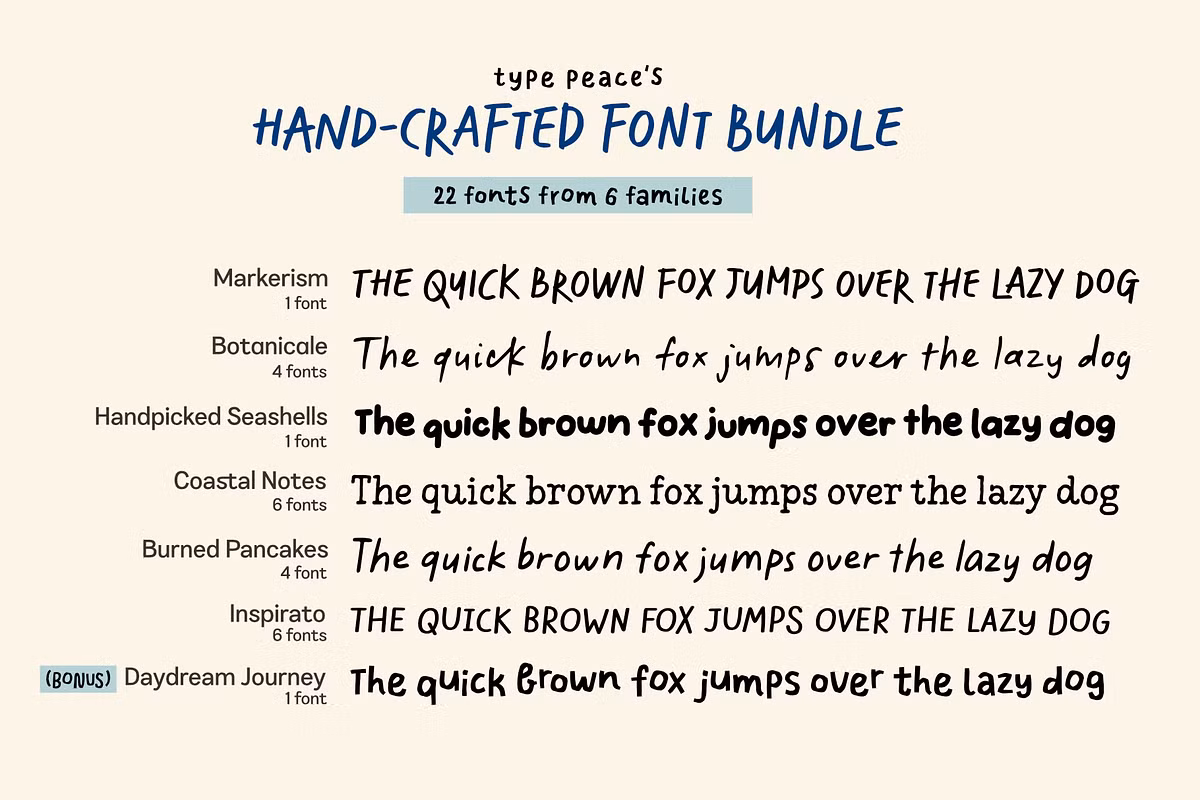
Exploring the Design Styles of the Handcrafted Font Bundle
The Handcrafted Font Bundle really stands out because it has a wide range of design styles. Every font family is carefully made to create certain feelings and looks, so designers can pick the ones that fit their projects just right. This means you can find a font that perfectly matches the mood and style you’re going for, whether it’s modern and sleek or vintage and elegant. With so many options to choose from, you’re sure to find the perfect font to bring your project to life.
Markerism
This font is really fun and bold, just like writing with a marker. It’s great for projects that need to look young and exciting. You can get it for $19, which is a pretty good deal. If you want to check it out, you can find Markerism here. It’s perfect for adding a playful touch to your work.
Botanicale
The Botanicale family has four special fonts that cost $22 each. They’re great for projects that are about nature because they have a fresh and natural look. This makes them perfect for companies that care about the environment and want to show that in their branding and packaging. You can check out the Botanicale collection here.
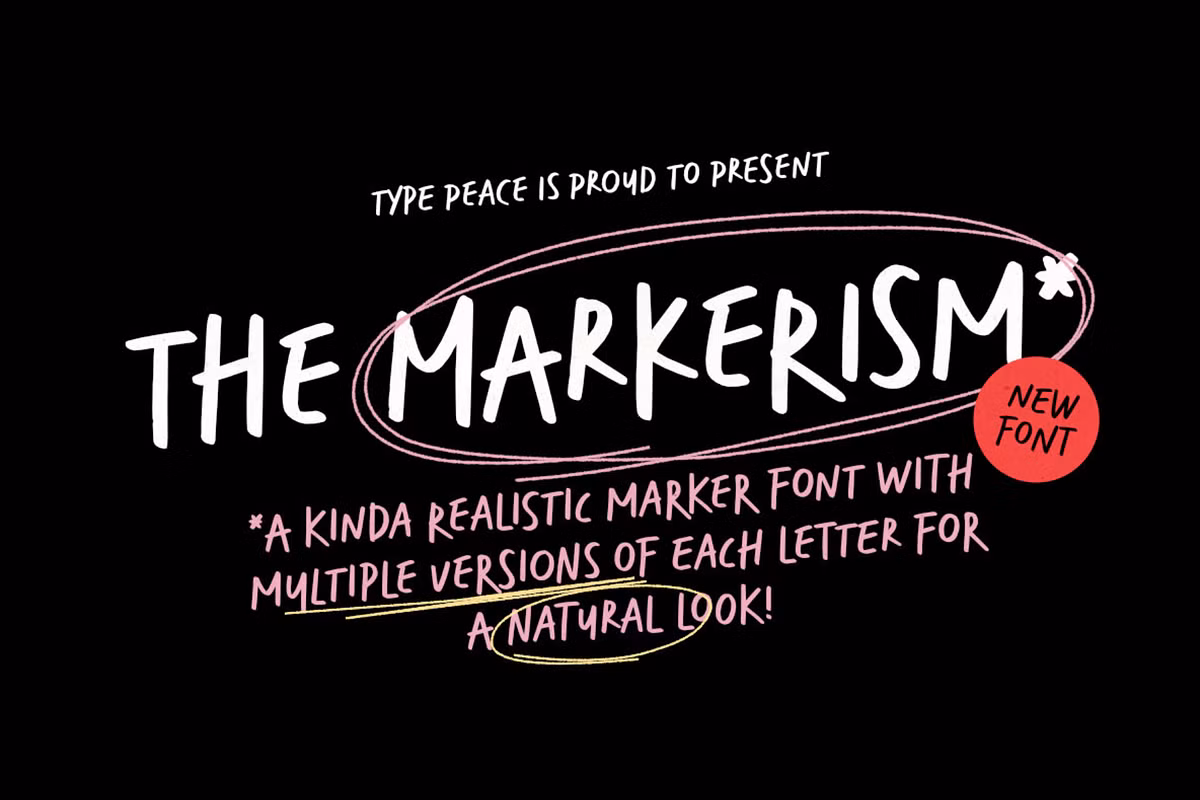
Handpicked Seashells
You can add a fun touch to your work with Handpicked Seashells, a bouncy font that’s great for kids’ books and playful ads. It costs $16 and is perfect for making your designs stand out. Take a look at it now.
Coastal Notes
The Coastal Notes family features six typewriter-style fonts for only $18, ideal for projects seeking a nostalgic feel. These fonts can be effectively used in stationery design or branding that aims to evoke a sense of vintage charm. Discover Coastal Notes here.
You can get the Burned Pancakes font family, which has four different fonts, for $24. This font has a handwritten look that’s casual but still stylish, making it great for social media posts and branding that’s not too formal. If you want to check it out, you can find Burned Pancakes here. It’s really good for creating a relaxed and friendly vibe in your content.
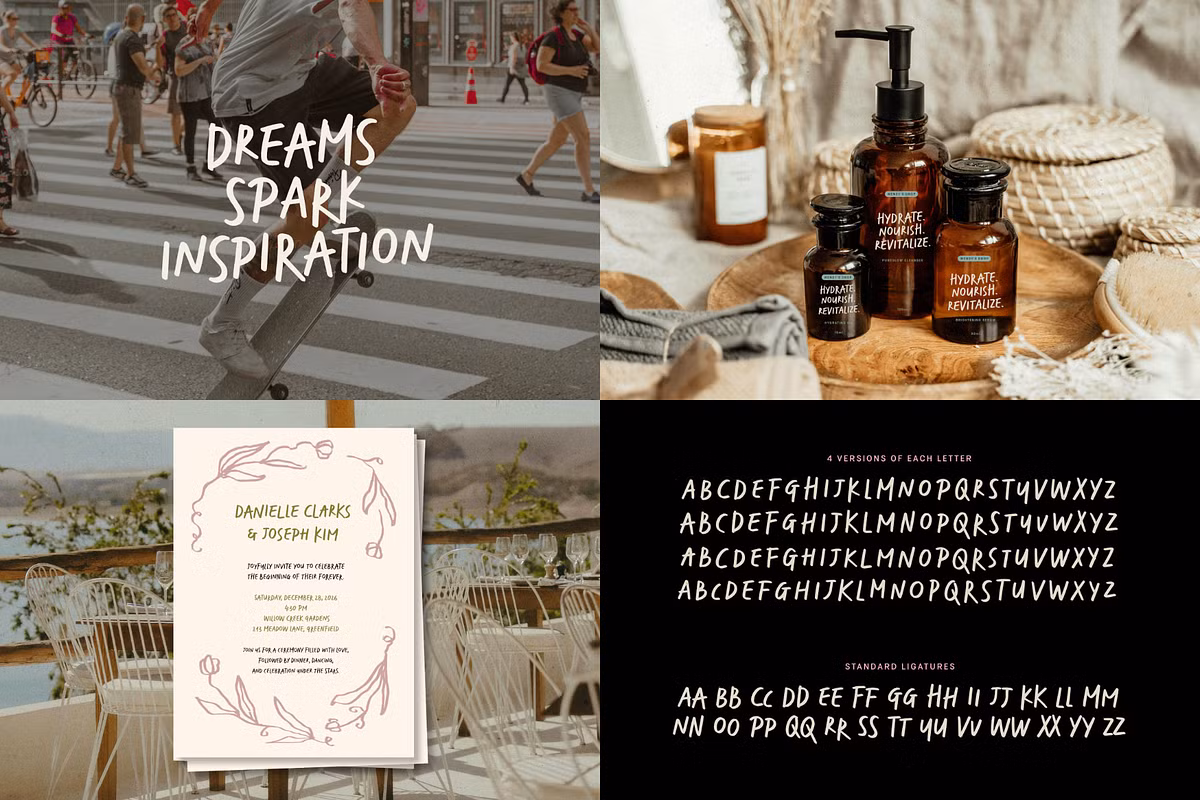
Inspirato
The Inspirato family is made up of four fonts that cost $20. These fonts are meant to spark creativity and individuality. They’re perfect for personal projects or one-of-a-kind invitations. If you’re interested, you can check out Inspirato and see what it has to offer.
Character Sets and Versatility
The fonts in the Handcrafted Font Bundle have lots of characters, so you can use them to communicate in many languages and styles. This is really important for design projects today, because they need to be inclusive and easy for everyone to use.
Each font is made with a lot of care, so the special things about handwritten letters really stand out. The bundle also comes with a extra font, Daydream Journey, which adds even more kinds of fonts to your collection. This font is great for projects that need a soft, magical feel. It’s perfect when you want to make something that looks like a dream. The fonts in this bundle are all unique and can help you make your projects look really special.
Use Cases for the Handcrafted Font Bundle
The Handcrafted Font Bundle is really versatile, so it’s great for lots of different creative projects. Here are some ideas for using it:
- Branding: Use the fonts to create memorable logos and brand identities that stand out in a crowded market.
- Packaging: Ideal for product labels and packaging designs that require a personal touch, enhancing customer connection.
- Social Media Content: Craft engaging posts and graphics that capture attention and reflect your brand’s personality.
You can use this for things like invitations, cards, and other paper stuff that looks nice with handwriting. It’s great for making things look personal and special.
These fonts are perfect for adding a special touch to your projects, whether you’re working on something personal, creating art prints, or making crafts. They can really make your work stand out and give it a unique feel.
The fonts in this collection can help you add warmth and personality to your message, which is really important for making a connection with your audience. With the Handcrafted Font Bundle, you can create designs that feel handmade and authentic, which can be a great way to stand out and make a lasting impression.